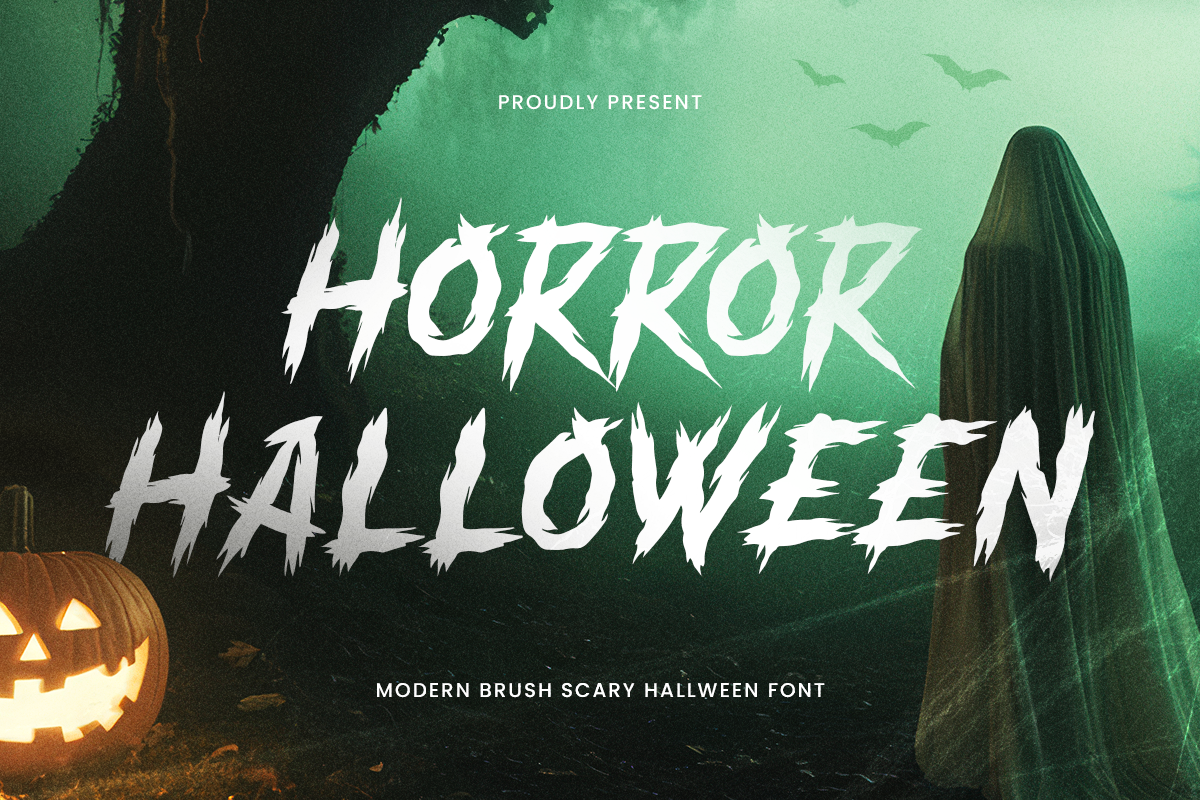
Horror Halloween
-Horror Halloween – Modern Brush Scary Halloween Font
HORROR HALLOWEEN is a modern brush scary Halloween font designed to bring raw energy, creepy character, and haunted atmosphere to your designs. Its expressive brush strokes and rough textures create a bold horror aesthetic that feels wild, mysterious, and perfectly suited to Halloween-inspired visuals.
Ideal for Halloween posters, horror movie titles, haunted house branding, event flyers, scary logos, apparel, packaging, album artwork, and social media graphics, HORROR HALLOWEEN makes every headline feel more intense and atmospheric. Its dynamic brush style adds an organic handmade quality while maintaining the strong presence needed for display typography.
Whether you're creating a spooky Halloween campaign, horror-themed merchandise, a haunted attraction identity, or terrifying promotional artwork, HORROR HALLOWEEN delivers a distinctive visual personality. Use it for titles, logos, quotes, posters, and other creative projects that demand a dark and frightening typographic style.
HORROR HALLOWEEN – Modern Brush Scary Halloween Font Features
Expressive modern brush letterforms with a scary aesthetic
Rough and dynamic character for authentic horror designs
Perfect for Halloween posters, logos, and event graphics
Ideal for horror titles, apparel, packaging, and merchandise
Great for digital and print applications
OpenType features for creative typographic flexibility
Bring a terrifying brush-stroke energy to your Halloween designs with HORROR HALLOWEEN – made for spooky stories and unforgettable scares. 🎃